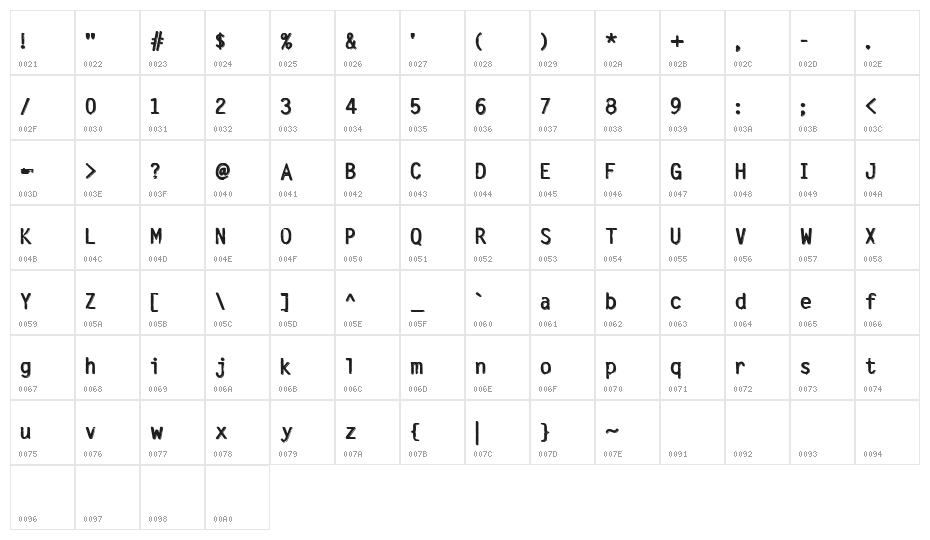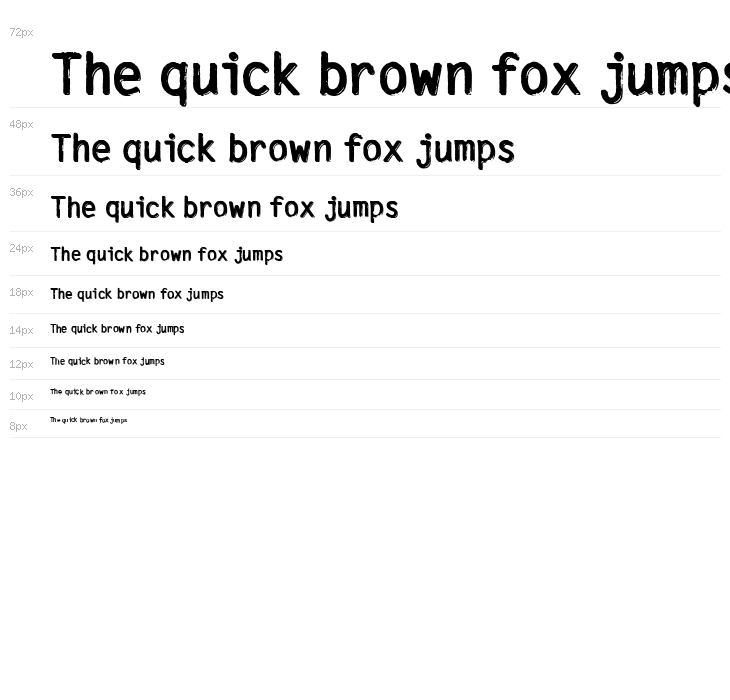
Silvery Tarjey Font
Silvery Tarjey Description
This font features a distressed, textured appearance that gives it a rugged and handcrafted feel. The characters are bold and slightly irregular, with a rough edge that suggests a vintage or grunge style. The uppercase and lowercase letters maintain a consistent height, while the numerals and special characters follow the same design ethos, adding to the cohesive look. The font's unique style makes it stand out, with each character appearing as if it has been stamped or printed with a worn-out ink pad, adding to its charm and character.
| Proposed Projects | Ideal for projects that require a rustic or vintage aesthetic, such as posters, album covers, branding for artisanal products, or any design that aims to convey a sense of authenticity and character. |